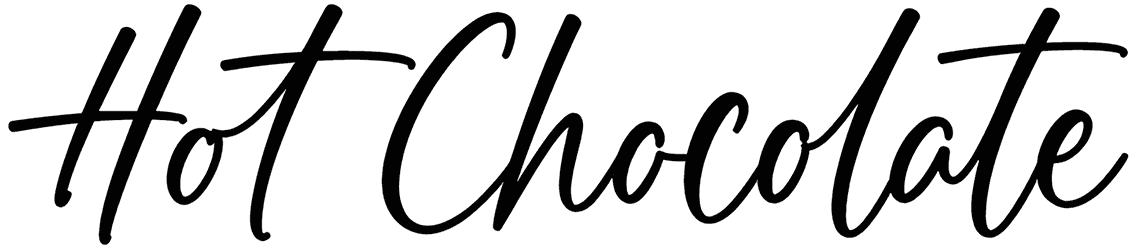
Hot Chocolate Font
Hot Chocolate is a handwritten script font that is designed to give a warm, friendly, and inviting feel to your designs. The font features elegant, sweeping lines and curves that mimic the fluid motion of handwriting.
Hot Chocolate is a holiday font that can be used for a wide range of design projects, from invitations and greeting cards to posters and packaging. It is a perfect choice for designers looking to add a personal touch to their work.